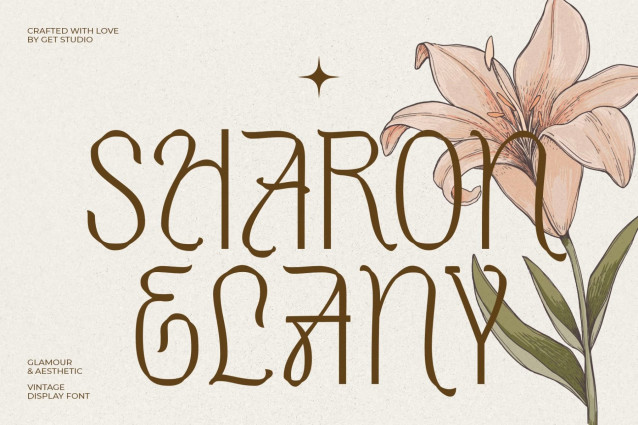
Sharon Elany Font
“Sharon Elany” is a modern vintage aesthetic display font, characterized by its smooth, ribbon-like curves. It offers a refined, elegant look with a touch of nostalgia. The font includes alternate characters and ligatures, providing versatility and creative possibilities for various design projects.